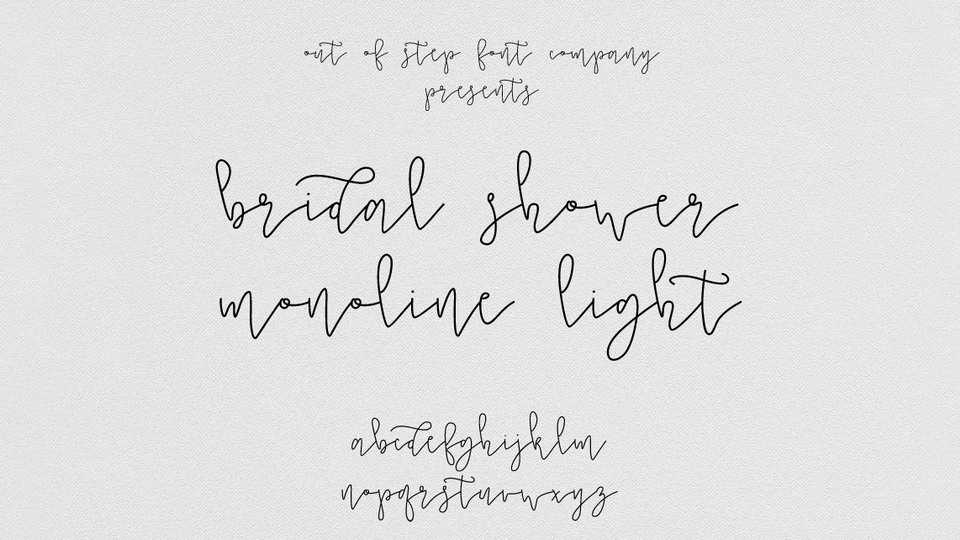
Download Bridal Shower Monoline Script, a hand-drawn modern calligraphy font, that uses ultra-modern calligraphy styling, without requiring ligatures or alternates to solve many of the most common connected-script problems.
Designer: Out of Step Font Company